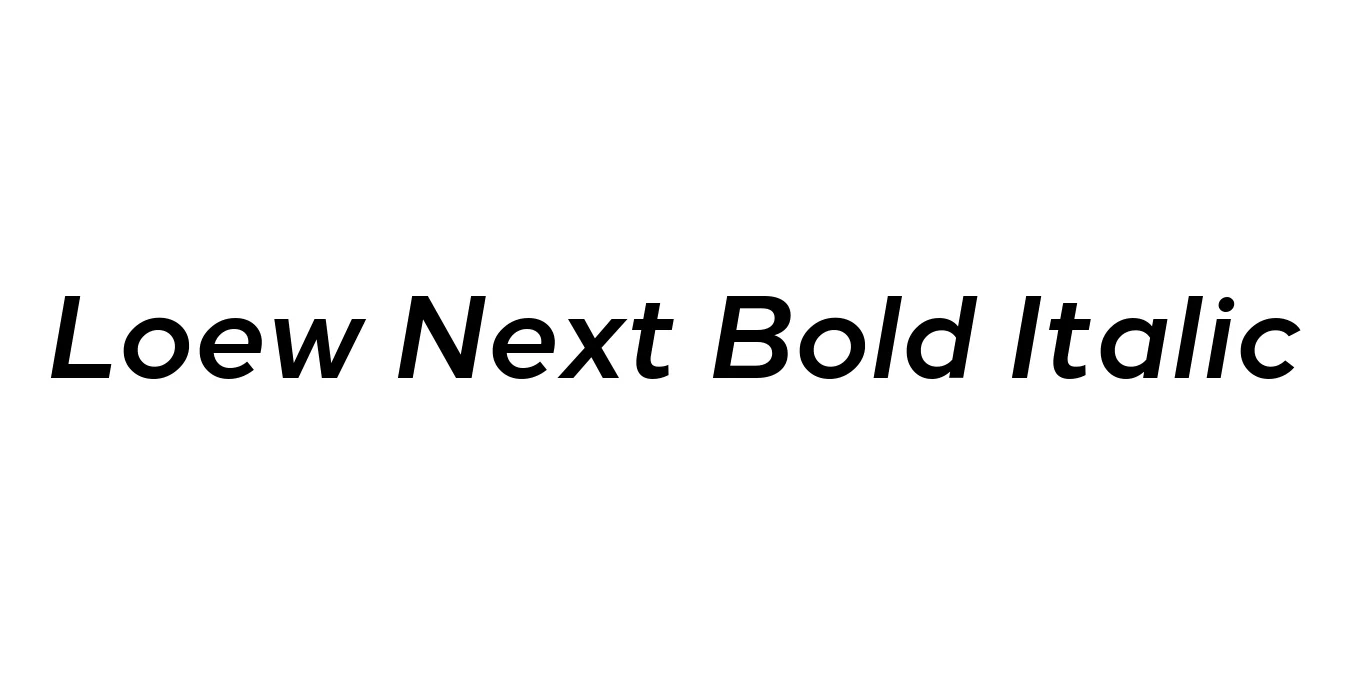
Loew Next Bold Italic
Designed by Jonathan Hill
Loew Next Bold Italic is a sophisticated evolution of the original Loew typeface, meticulously redesigned by Jonathan Hill of The Northern Block. This geometric sans-serif is celebrated for its exceptional clarity and modernization of early industrial grotesques, featuring a more balanced structure and enhanced legibility tailored for both high-resolution screens and professional print environments.
The Bold Italic weight brings a dynamic, forward-leaning energy to the family, making it an ideal choice for emphasis, branding, and motion graphics. By blending technical precision with subtle humanistic touches, it bridges the gap between mechanical rigidity and organic flow, offering a versatile and authoritative tool for modern graphic designers.
Loew Next Bold Italic Best Uses
Ideal for creating strong and memorable visual identities.
Optimized for legibility in user interfaces and mobile apps.
Perfect for bold, slanted display text in advertising.
Adds a contemporary and professional feel to print publications.